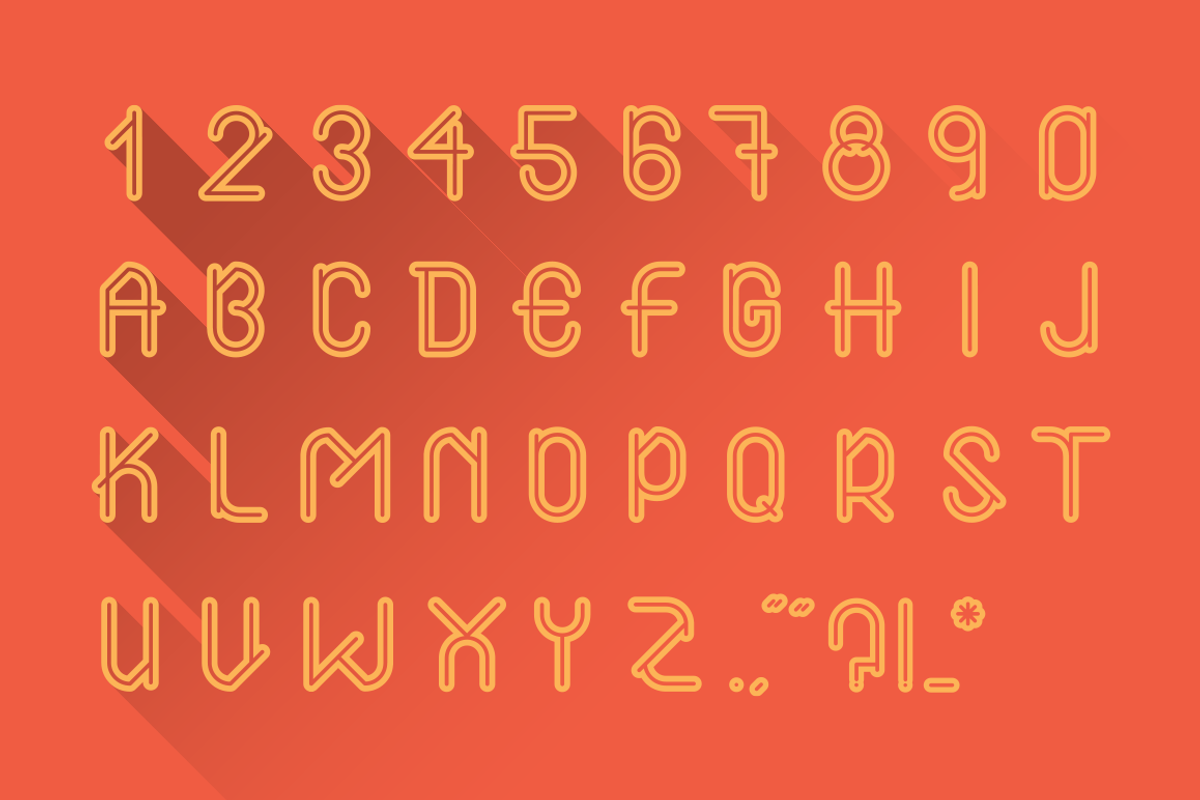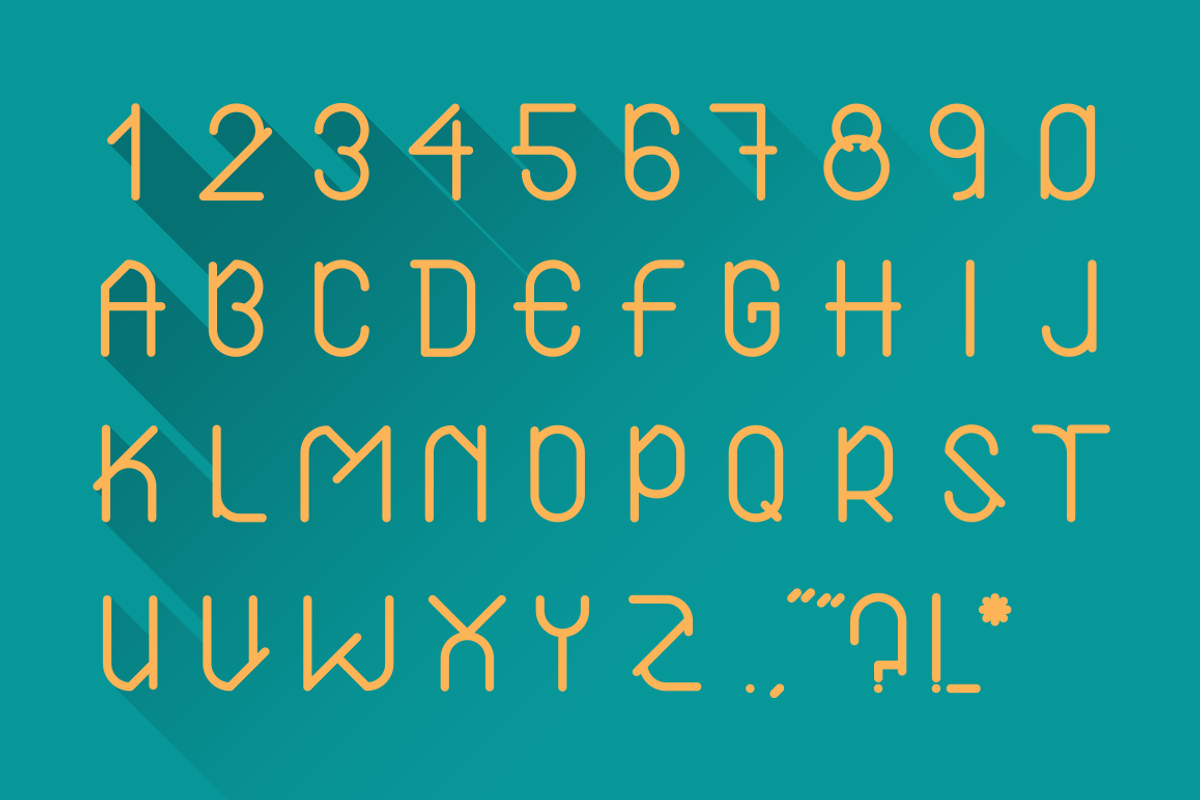
Air Typeface (Normal, Bold, Outline)
Air Typeface (Normal, Bold, Outline) by madebychipmunk is a font selected for branding, posters, packaging, typography.
Why Air Typeface (Normal, Bold, Outline) is worth a look
Air Typeface (Normal, Bold, Outline) by madebychipmunk fits naturally into Branding, posters, packaging, typography.